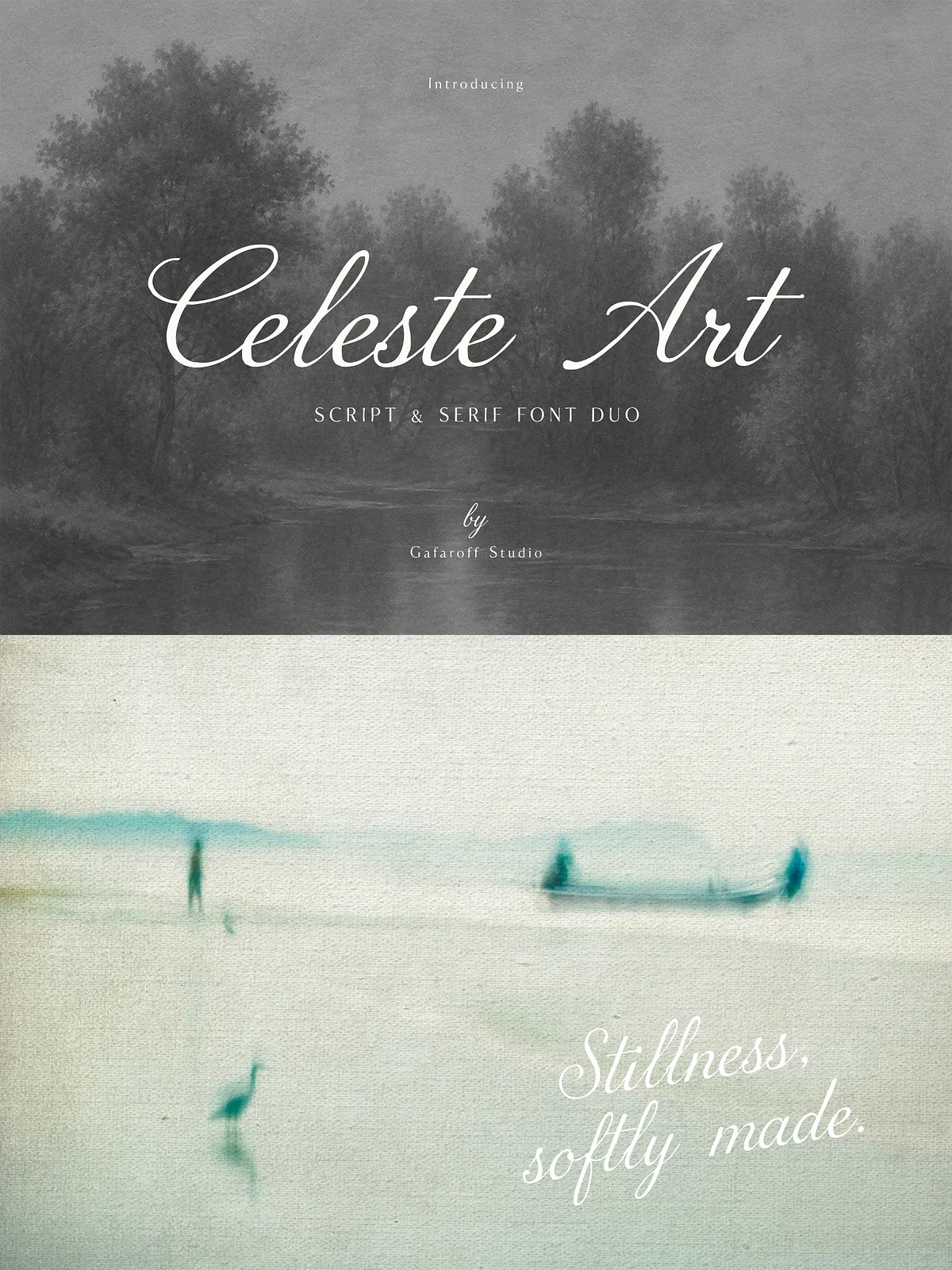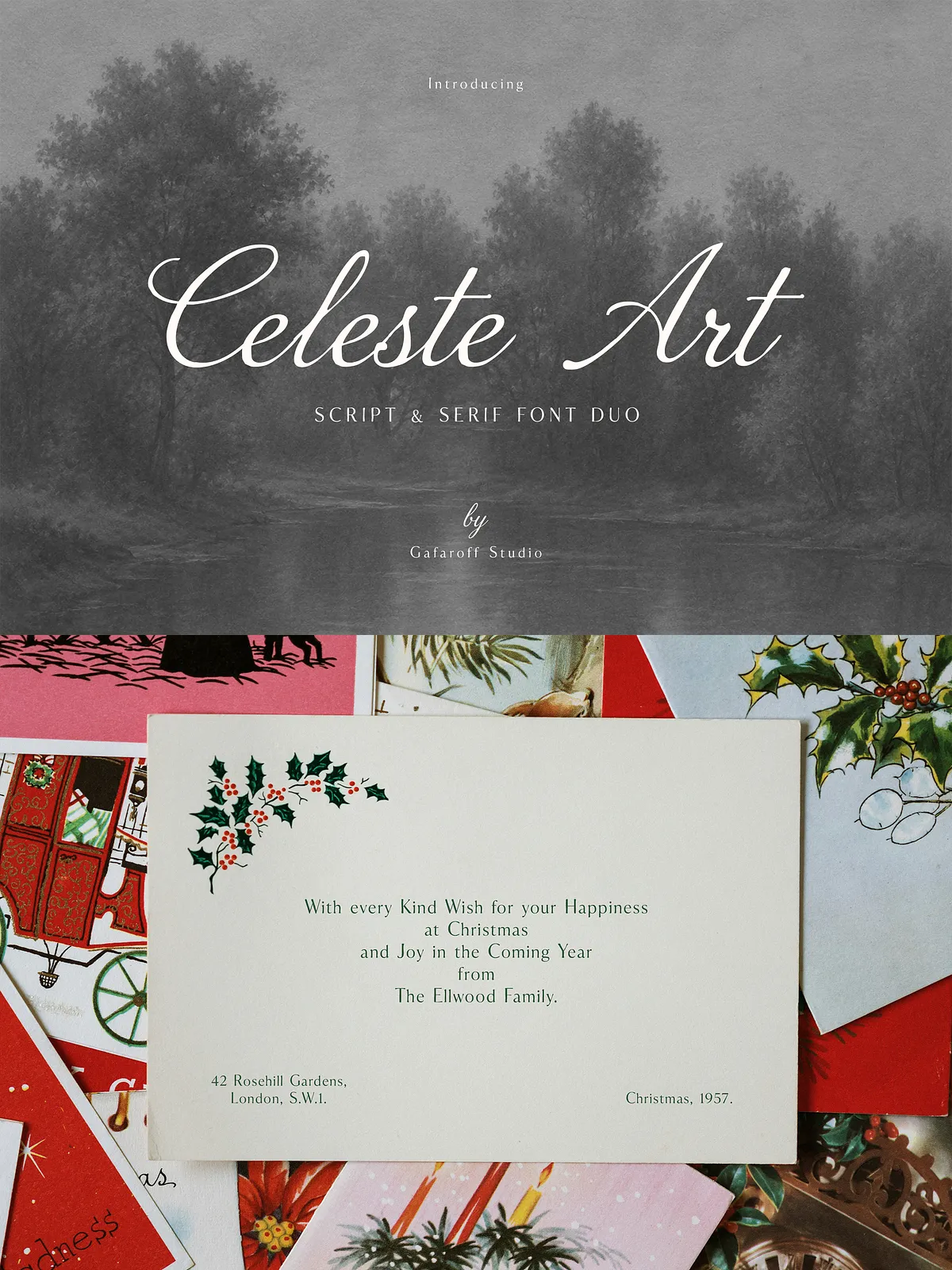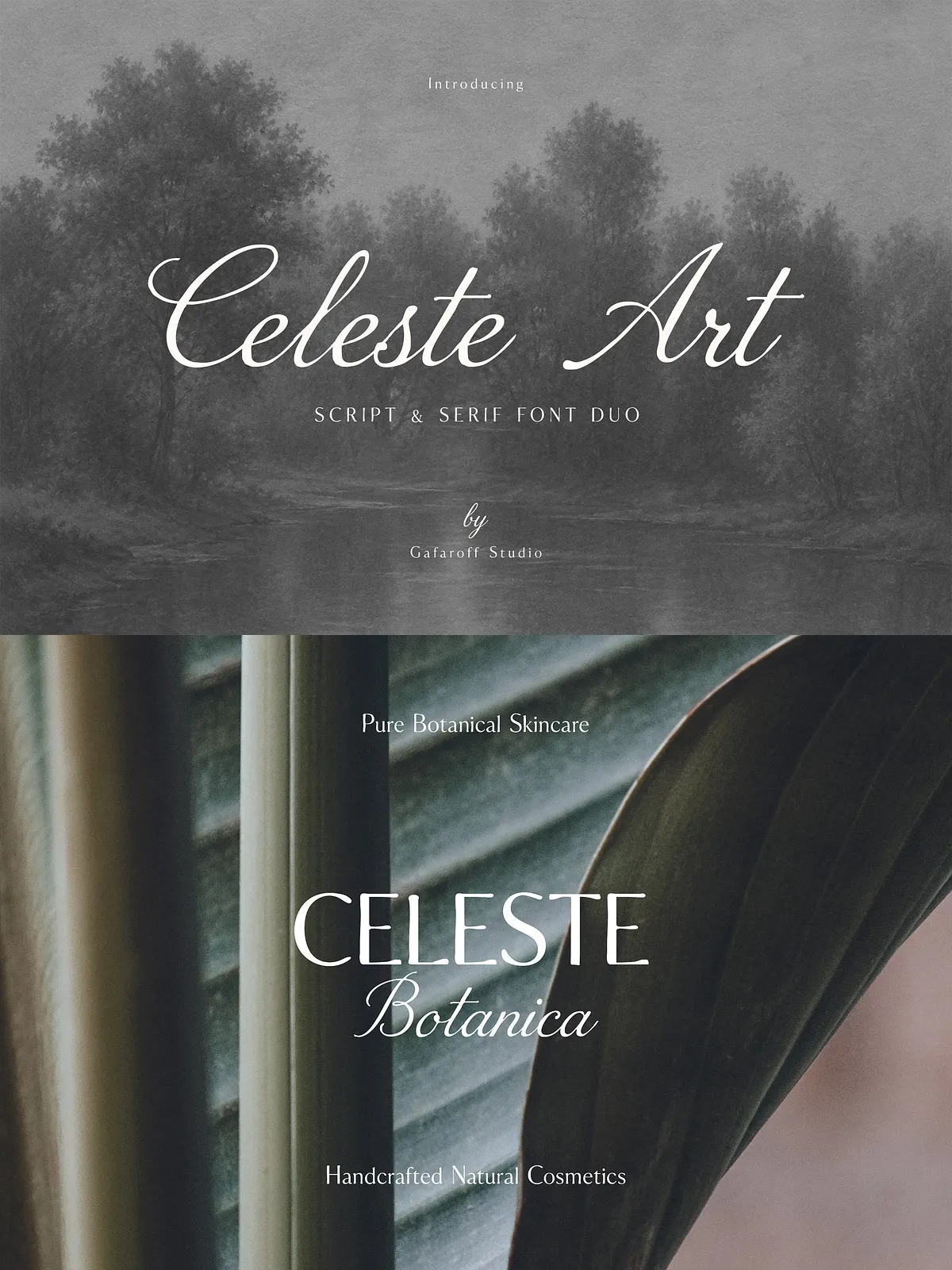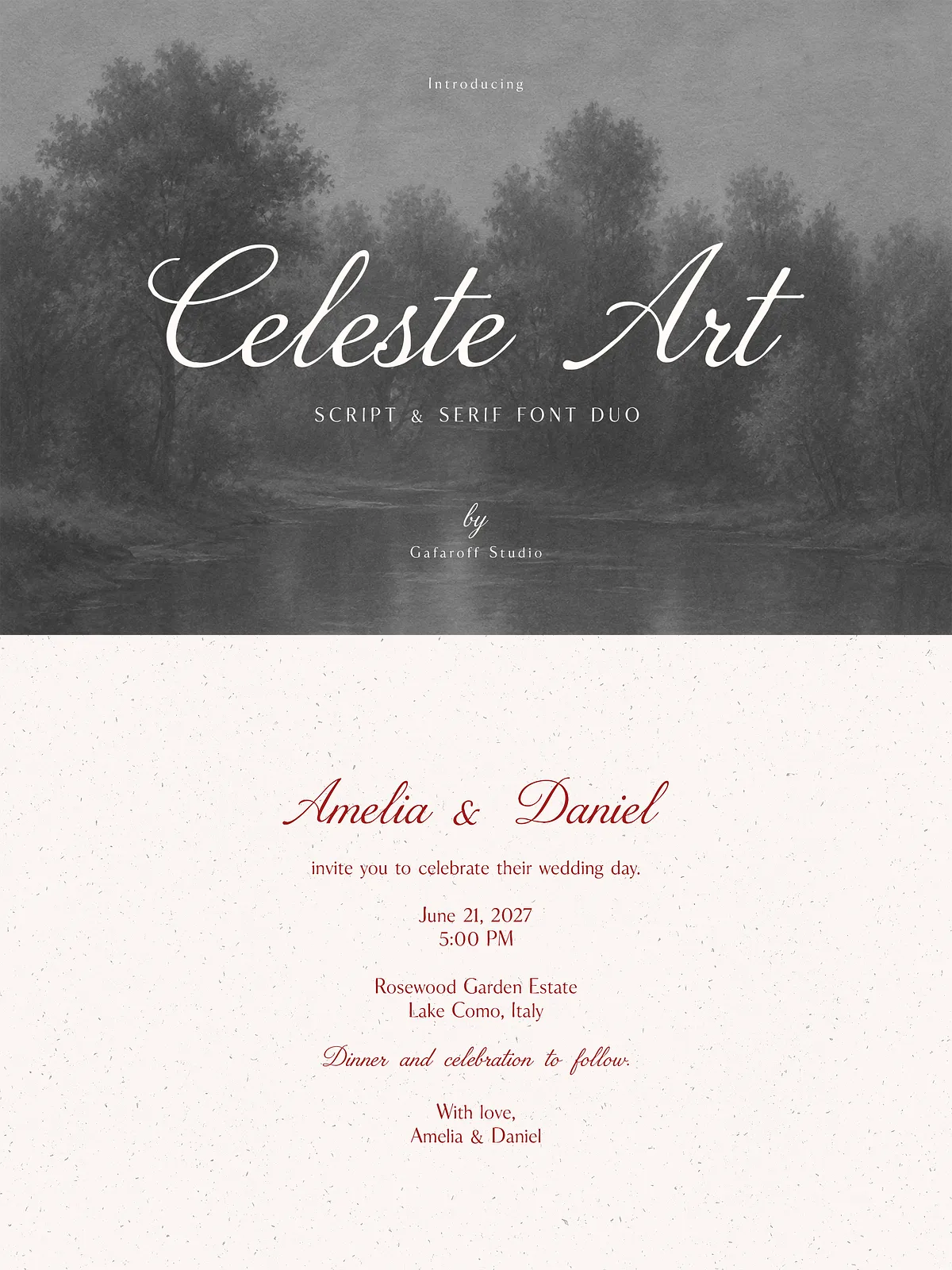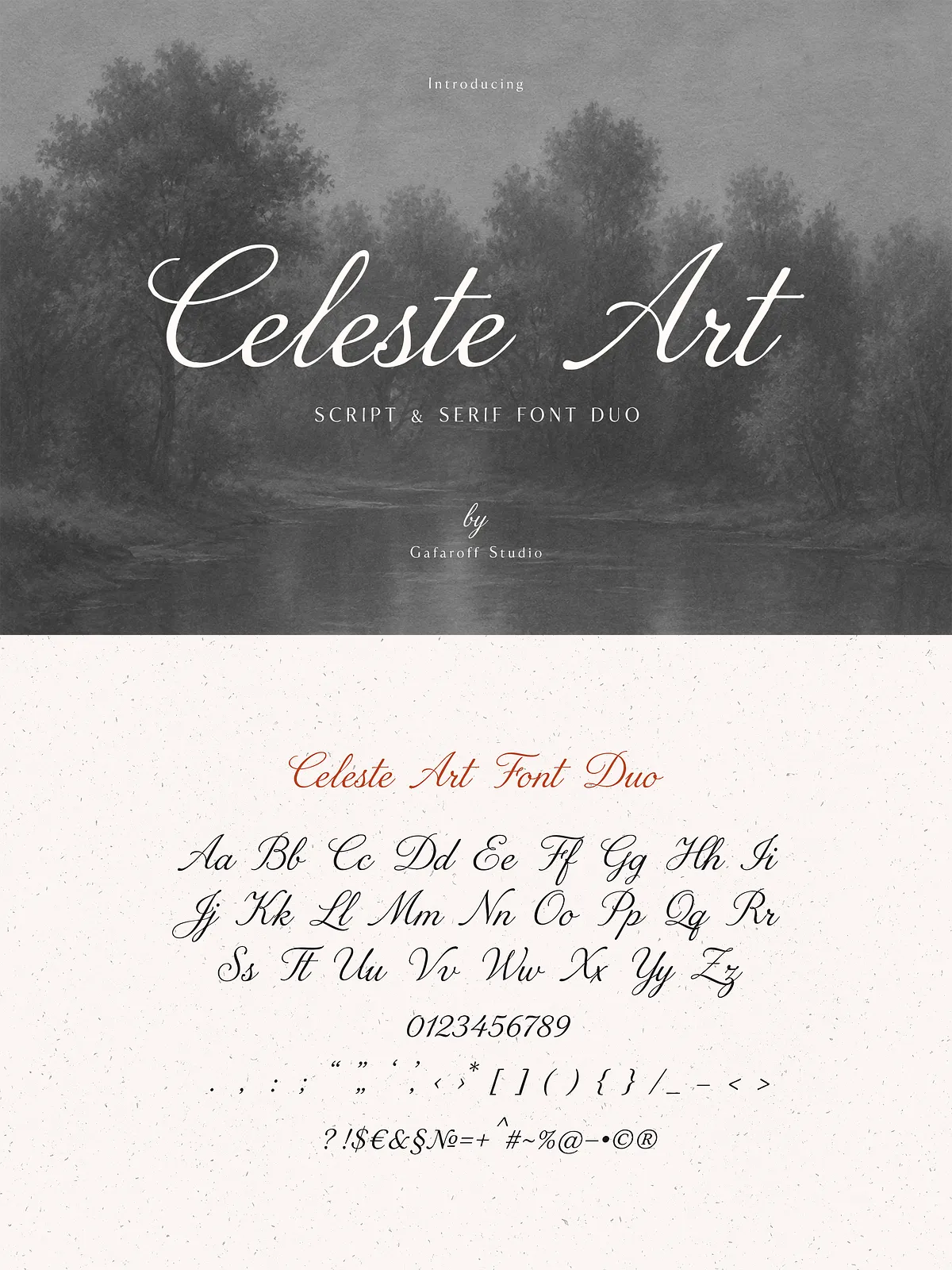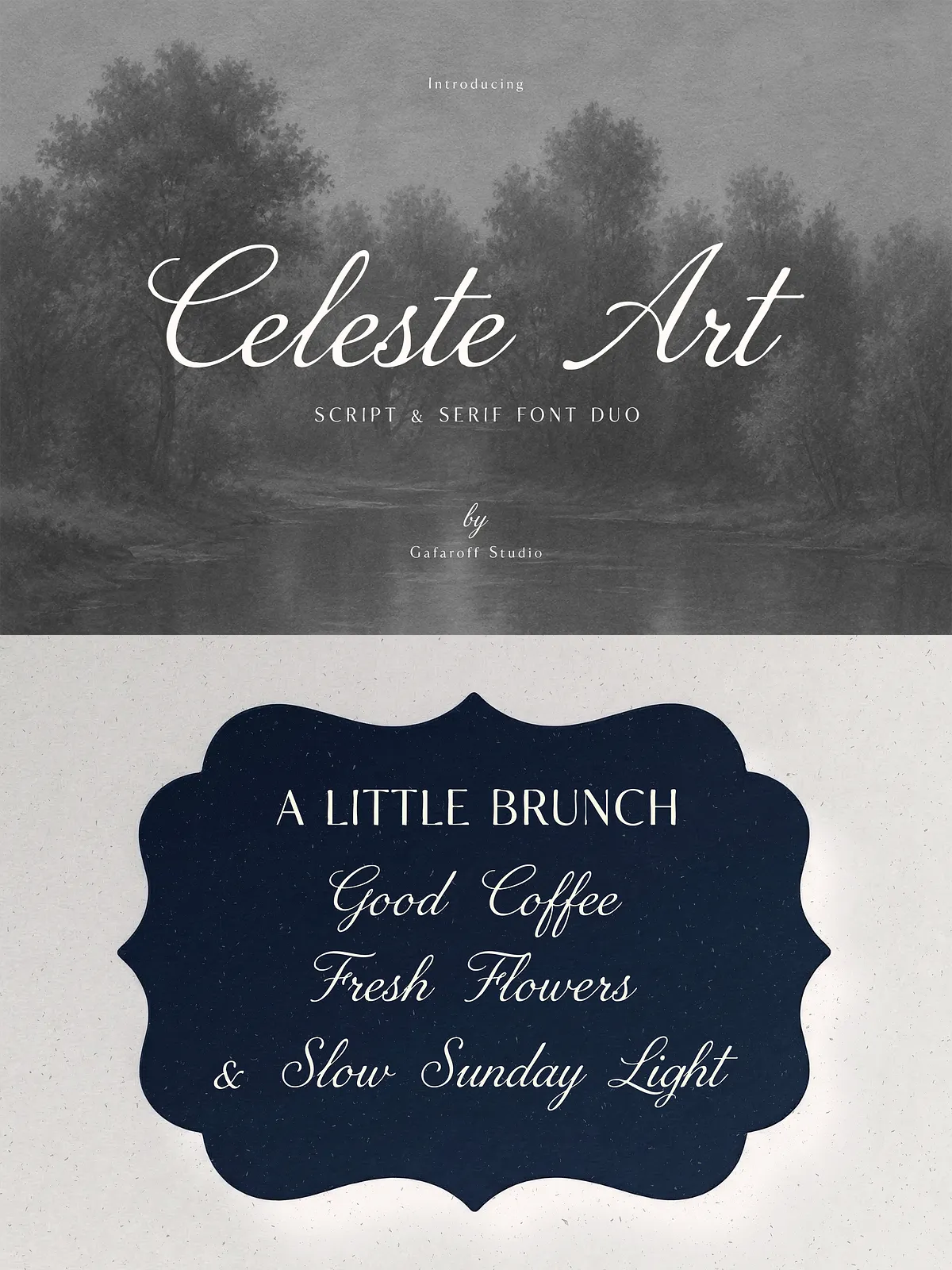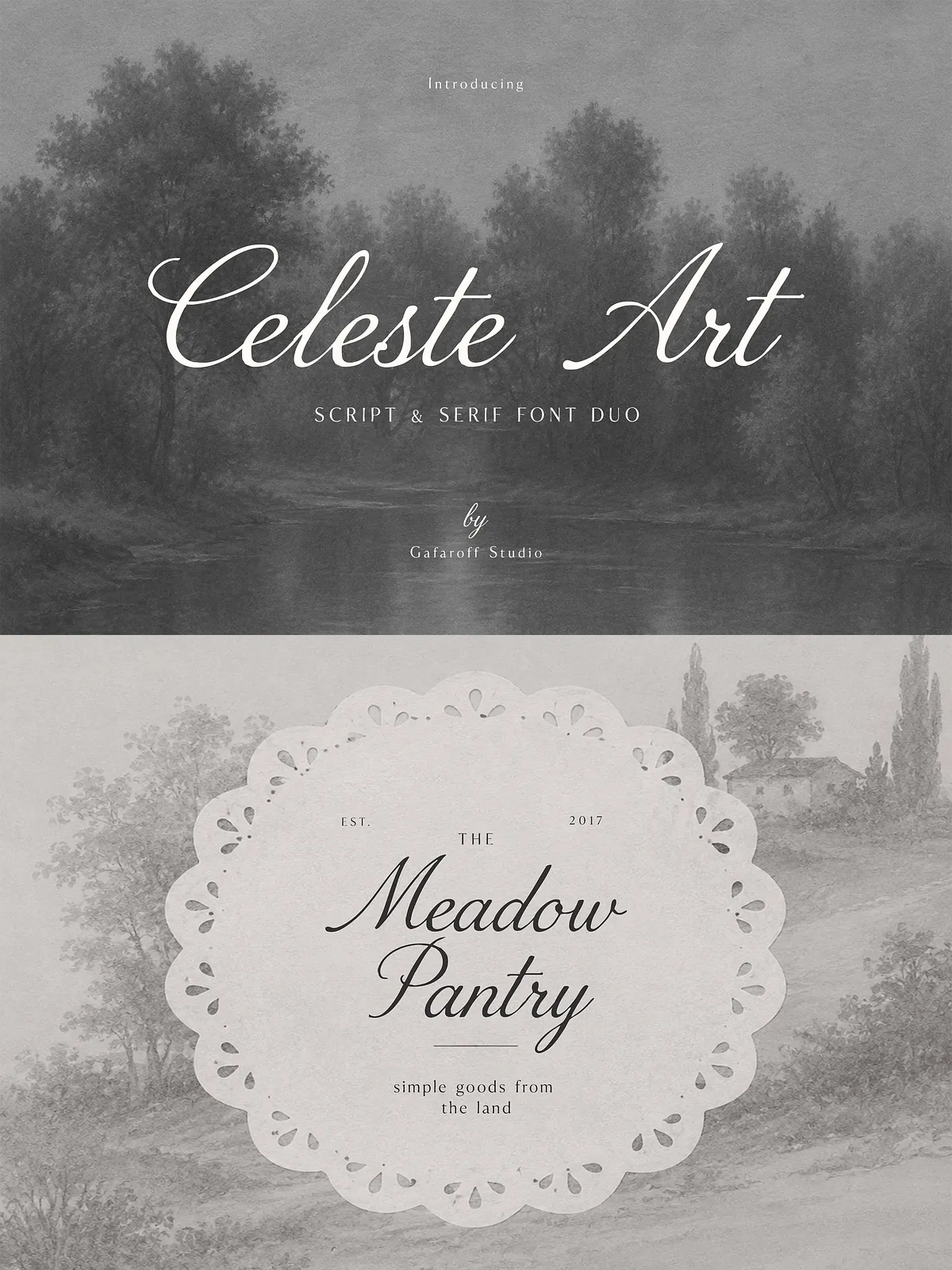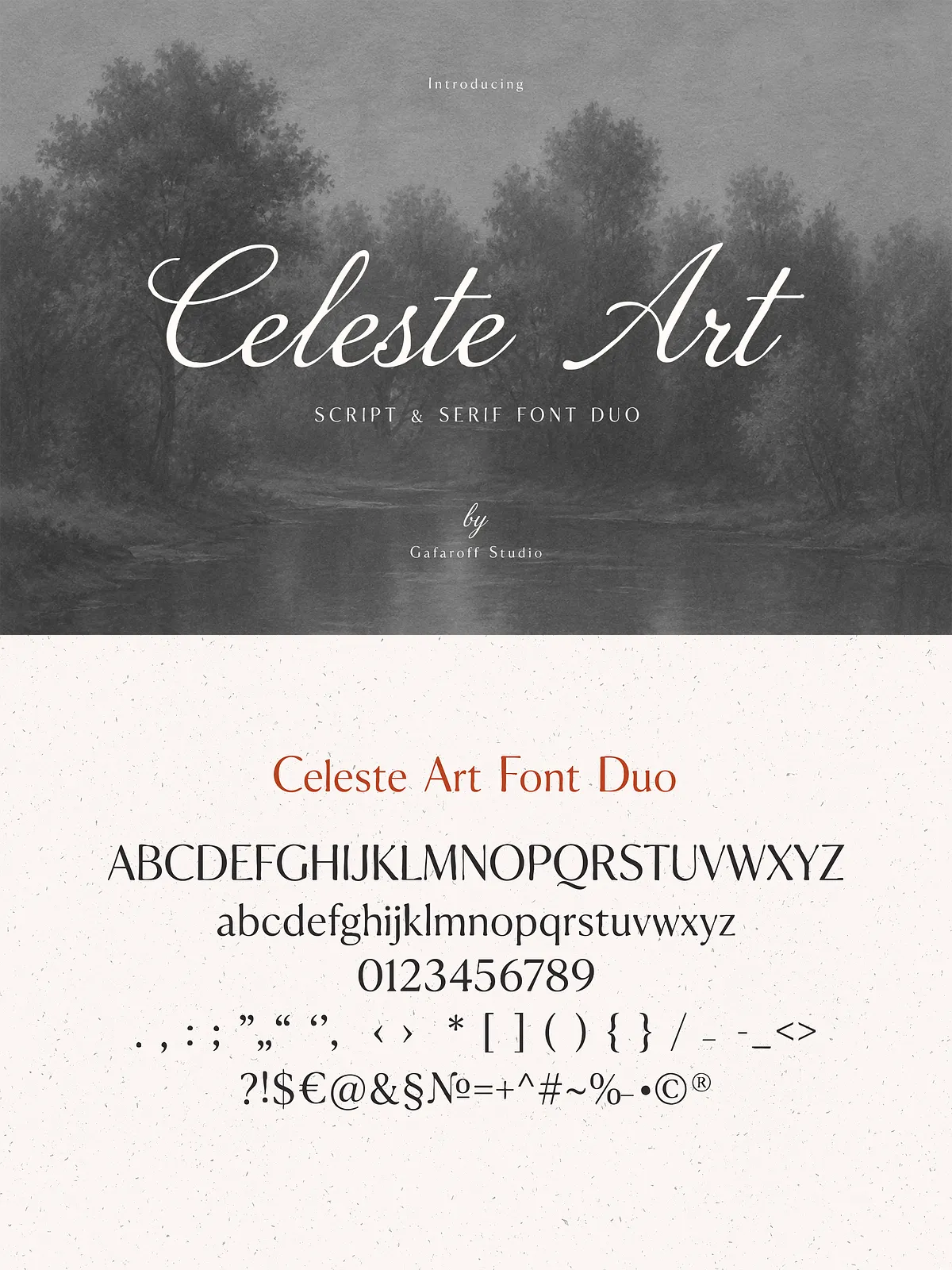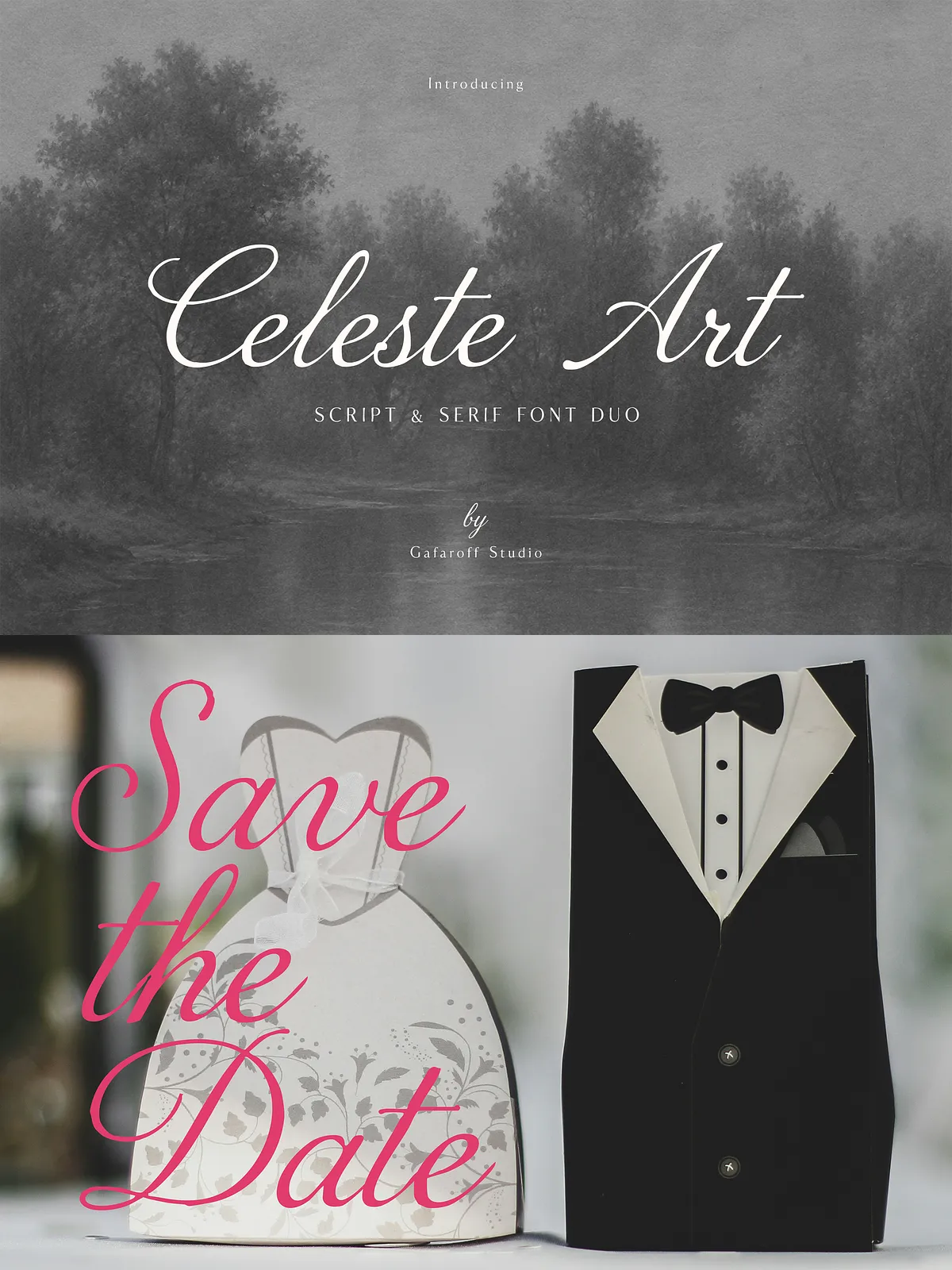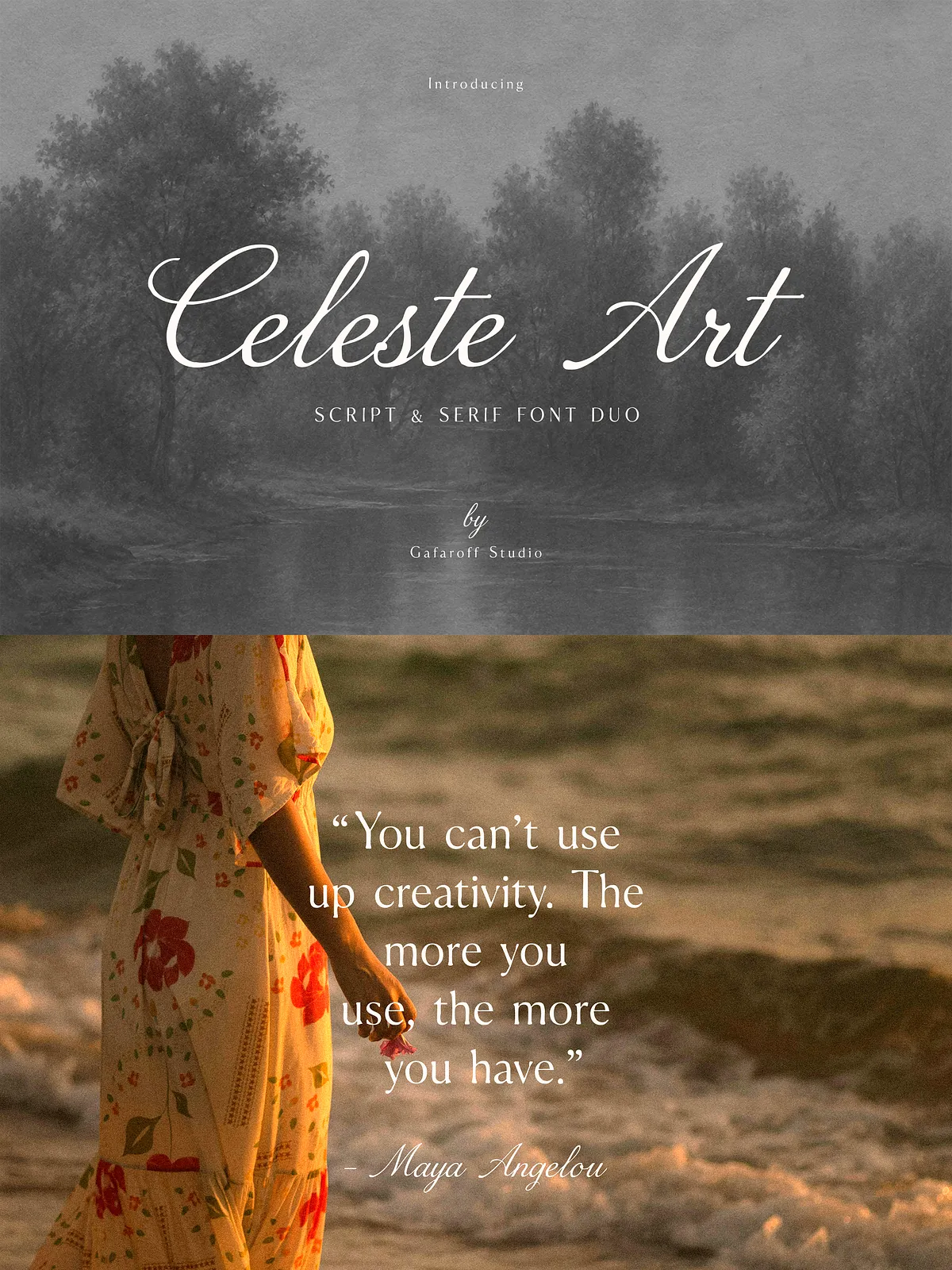
Celeste Art combines a graceful handwritten script with a delicate, minimal serif to deliver a polished, romantic font pairing. Designed for designers, wedding planners, and boutique brands, this duo creates cohesive visual identities that feel timeless and refined. The script injects warmth and personality, while the serif provides balance, legibility, and a clean editorial tone.
Design Characteristics
Script: Soft, Romantic, Handwritten
The Celeste Art script features flowing strokes, natural connections, and subtle variations that mimic authentic handwriting. It performs beautifully at display sizes, making it ideal for headlines, logos, signatures, and invitations. Alternates and contextual forms ensure repeated words remain organic and avoid mechanical repetition.
Serif: Minimal, Elegant, Versatile
The accompanying serif offers restrained proportions, fine terminals, and clear letter shapes that pair effortlessly with the script. It enhances readability for body text, subheads, and detailed information on packaging or programs, while reinforcing a luxury aesthetic across brand applications.
Primary Applications
Where Celeste Art Excels
- Wedding invitations, save-the-dates, and ceremony programs
- Luxury logos, monograms, and full identity systems
- Beauty, perfume, and skincare packaging
- Product labels, candle tags, and boutique packaging
- Editorial layouts, magazine headers, and feature spreads
- Social media graphics, Instagram posts, Pinterest visuals, and quote images
- Photography watermarks, signature logos, and stationery
How to Use the Duo Effectively
Design Tips
- Use the script for focal elements—logos, signature lines, or main headlines—and the serif for supporting copy and metadata.
- Pair generous line-height with the script at display sizes to preserve legibility and emphasize its flowing character.
- Apply the serif in small-caps or medium weights for elegant subheads and product details that require clarity.
- Combine script alternates to craft unique wordmarks and to avoid monotony in repeated words.